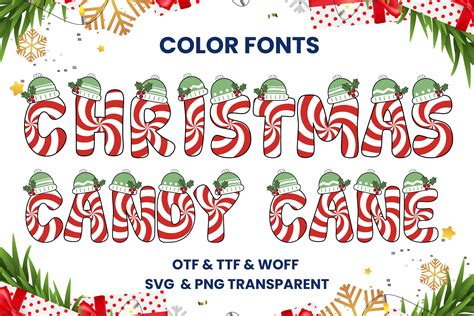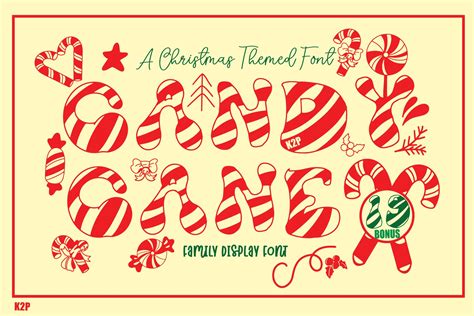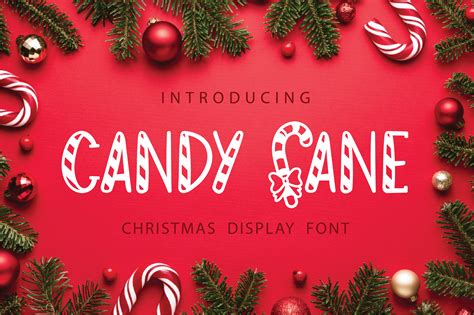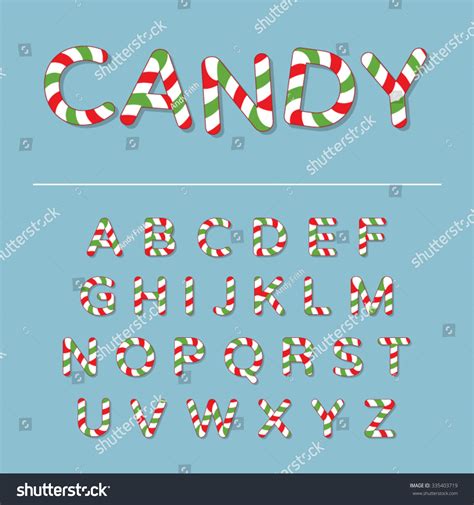
Embarking on a creative journey often involves finding the perfect font to convey the right mood and style. One font that has gained significant popularity, especially during the festive season, is the Candy Cane Font. This whimsical and playful font is inspired by the classic candy cane, evoking feelings of joy, warmth, and nostalgia. Whether you're designing holiday cards, creating festive decorations, or adding a touch of holiday cheer to your digital projects, the Candy Cane Font is a versatile choice that can bring a festive flair to any design.
What is the Candy Cane Font?
The Candy Cane Font is a decorative typeface that mimics the striped pattern of a candy cane. It is characterized by its bold, playful strokes and alternating red and white stripes, which give it a distinctive and eye-catching appearance. This font is particularly popular during the holiday season, as it perfectly captures the spirit of Christmas and winter celebrations. However, its unique design makes it suitable for a variety of other projects as well, from children’s party invitations to whimsical branding.
History and Inspiration
The Candy Cane Font draws its inspiration from the traditional candy cane, a striped hard candy that is a staple of the holiday season. The candy cane itself has a rich history, with its origins tracing back to the 17th century. It was originally created as a symbol of the Christian faith, with the white representing the purity of Jesus and the red stripes symbolizing his blood shed for humanity. Over time, the candy cane has become a beloved holiday treat, and its iconic design has inspired various creative interpretations, including the Candy Cane Font.
Characteristics of the Candy Cane Font
The Candy Cane Font is known for its unique and playful characteristics. Some of the key features include:
- Striped Pattern: The font features alternating red and white stripes, mimicking the classic candy cane design.
- Bold Strokes: The letters are bold and thick, making them stand out and easy to read.
- Playful Style: The font has a whimsical and playful appearance, perfect for adding a festive touch to any design.
- Versatility: Despite its festive origins, the Candy Cane Font can be used in a variety of projects, from holiday-themed designs to children’s parties and more.
Design Ideas with the Candy Cane Font
The Candy Cane Font is incredibly versatile and can be used in a variety of design projects. Here are some ideas to inspire you:
- Holiday Cards: Create festive holiday cards with the Candy Cane Font to spread holiday cheer.
- Party Invitations: Design whimsical party invitations for children’s birthdays or holiday parties.
- Festive Decorations: Use the font to create banners, signs, and other decorations for holiday events.
- Branding: Incorporate the Candy Cane Font into your branding for a playful and memorable touch.
- Social Media Graphics: Design eye-catching graphics for social media posts, especially during the holiday season.
Tips for Effective Use
To make the most of the Candy Cane Font in your designs, consider the following tips:
- Contrast: Use contrasting colors to make the striped pattern stand out. For example, pair the font with a dark background to enhance the red and white stripes.
- Size: Adjust the font size to ensure readability. The bold strokes of the Candy Cane Font make it suitable for larger sizes, but be mindful of legibility in smaller sizes.
- Pairing: Pair the Candy Cane Font with complementary fonts for a balanced design. For example, use a simple, clean font for body text and the Candy Cane Font for headings or highlights.
- Consistency: Maintain consistency in your design by using the Candy Cane Font throughout your project. This helps create a cohesive and unified look.
Examples of Candy Cane Font in Action
To give you a better idea of how the Candy Cane Font can be used, here are some examples:
| Project Type | Design Elements | Usage |
|---|---|---|
| Holiday Cards | Festive colors, holiday imagery | Use the Candy Cane Font for the main greeting or message. |
| Party Invitations | Whimsical illustrations, bright colors | Incorporate the font into the invitation text and decorations. |
| Festive Decorations | Banners, signs, posters | Create eye-catching banners and signs with the Candy Cane Font. |
| Branding | Logos, packaging, marketing materials | Use the font for logos or as an accent in marketing materials. |
| Social Media Graphics | Holiday-themed images, festive colors | Design graphics with the Candy Cane Font for holiday posts. |
Alternative Fonts to Consider
While the Candy Cane Font is a fantastic choice for festive designs, there are other fonts that can also add a touch of holiday cheer. Here are a few alternatives to consider:
- Christmas Font: This font features festive elements like snowflakes, holly, and Christmas trees, making it perfect for holiday-themed designs.
- Snowflake Font: With its delicate snowflake patterns, this font adds a wintery touch to your designs.
- Gingerbread Font: This whimsical font features gingerbread man shapes, perfect for adding a playful and festive element to your projects.
- Candy Cane Script Font: This script font mimics the striped pattern of a candy cane but with a more elegant and flowing style.
💡 Note: When choosing alternative fonts, consider the overall style and mood of your design to ensure a cohesive look.
In wrapping up, the Candy Cane Font is a delightful and versatile choice for adding a festive touch to your designs. Its unique striped pattern and playful style make it perfect for holiday-themed projects, as well as other whimsical and creative endeavors. Whether you’re designing holiday cards, party invitations, or festive decorations, the Candy Cane Font can bring a touch of holiday cheer to any project. Its bold strokes and eye-catching design make it a standout choice for adding a festive flair to your designs.